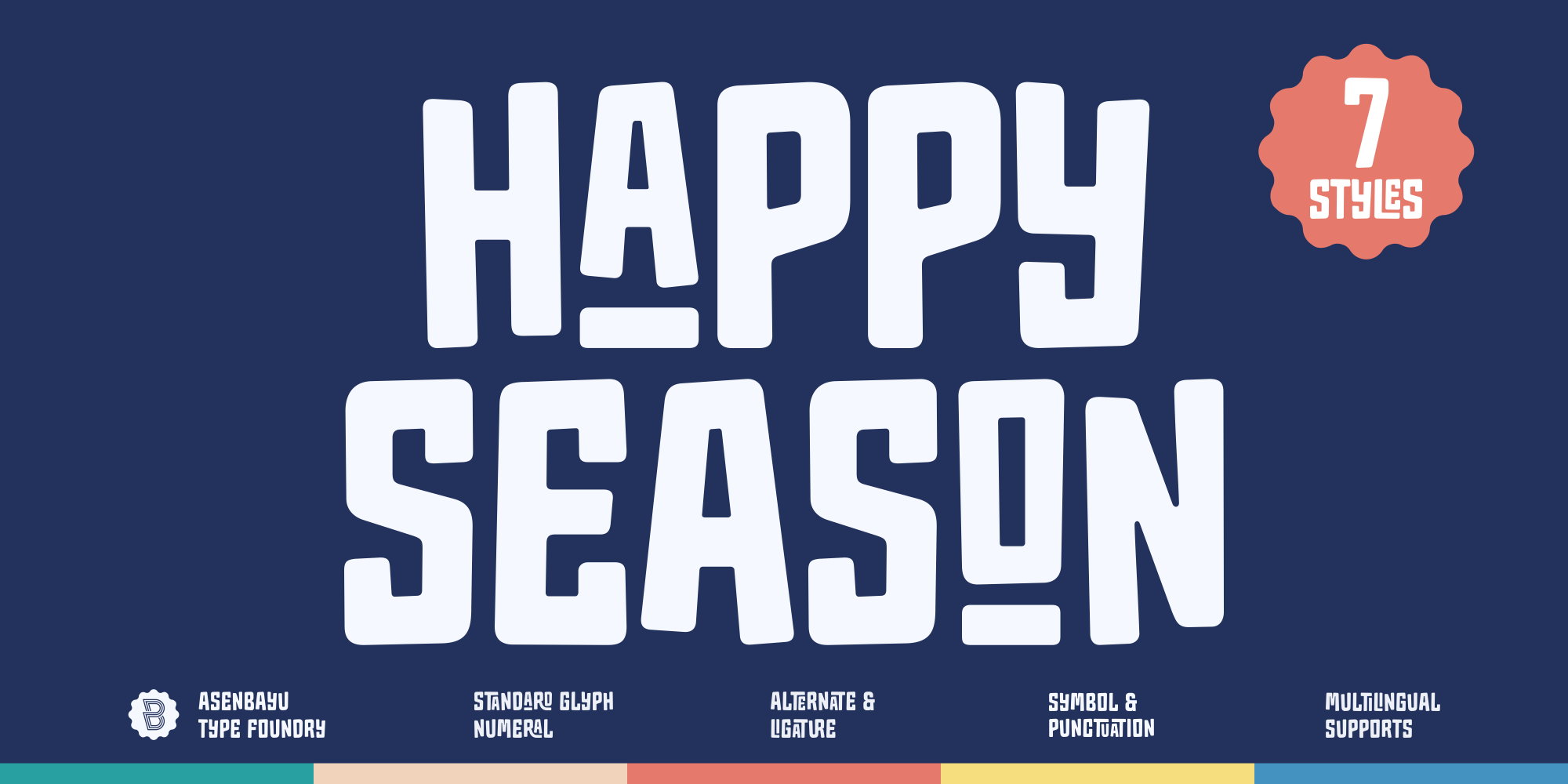
Happy Season Free Download
Happy Season Font Free Download
Please note, you must purchase this font for commercial use. You can download Happy Season Font Free Download for testing purposes and explore its joyful, festive design. Happy Season Font is perfect for holiday-themed projects, greeting cards, invitations, posters, and any design that needs a cheerful and celebratory touch.
With its playful curves and friendly letterforms, Happy Season Font brings a lighthearted and vibrant feel to your designs. It's ideal for projects that want to convey happiness, warmth, and the spirit of celebration, making it perfect for seasonal campaigns, events, and promotions.
Happy Season Font Free Download supports multilingual characters, making it versatile for global projects. Its clear and readable design ensures that it works well across both digital and print formats, whether for large headlines or small details.